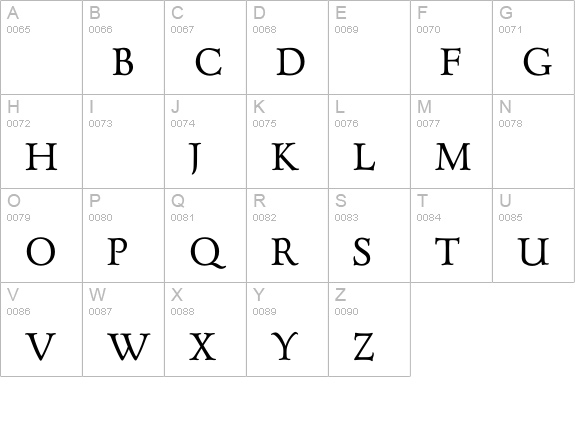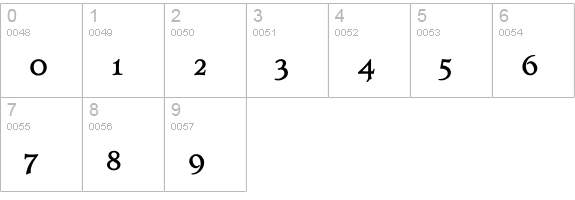
ForumTitlingBoldOldStyleFigs Font Details
Introducing ForumTitlingBoldOldStyleFigs font - a striking and elegant typeface that effortlessly combines classic sophistication with a bold modern twist. This exquisite font features intricate details and ornate flourishes that exude a sense of timeless charm and refinement. Its bold, old-style figures add a touch of grandeur, making it perfect for projects that require a touch of vintage elegance. What makes ForumTitlingBoldOldStyleFigs font even more appealing is that it is available for free download at FontsMarket.com. This means you can easily add this stunning font to your collection without any cost, making it a valuable asset for designers, creatives, and enthusiasts alike. Elevate your projects with the timeless beauty of ForumTitlingBoldOldStyleFigs font and make a lasting impression with its unique blend of classic and contemporary design elements.